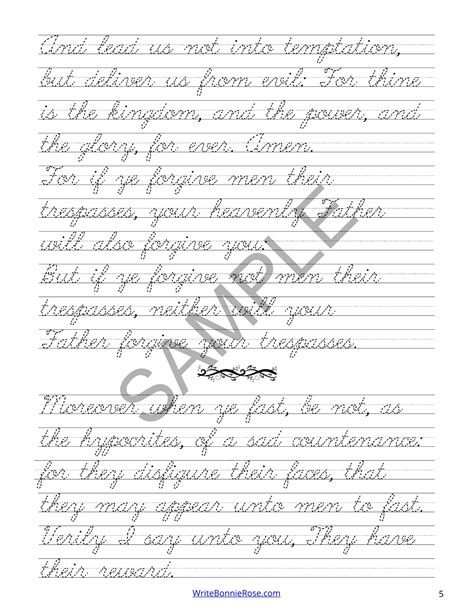
Learning to write in cursive can be a rewarding experience, and mastering the art of writing "Matthew" in cursive is a great place to start. Cursive writing not only adds a personal touch to your handwriting but also improves fine motor skills and enhances cognitive development. In this blog post, we will guide you through the steps to write "Matthew" in cursive, providing tips and tricks to help you perfect your technique.
Understanding Cursive Writing
Cursive writing is a style of penmanship in which the letters are connected in a flowing manner. It is often taught in schools as a way to improve handwriting speed and legibility. Writing in cursive requires a different set of skills compared to print writing, as it involves continuous strokes and fluid movements.
Benefits of Writing in Cursive
Writing in cursive offers several benefits, including:
• Improved fine motor skills
• Enhanced cognitive development
• Increased handwriting speed
• Better legibility
• Personalized and elegant handwriting
Steps to Write “Matthew” in Cursive
Writing “Matthew” in cursive involves breaking down the name into individual letters and connecting them smoothly. Here are the steps to help you write “Matthew” in cursive:
Step 1: Practice Individual Letters
Before attempting to write the entire name, practice writing each letter in cursive individually. Focus on the correct formation and flow of each letter. The letters in “Matthew” are M, a, t, t, h, e, w.
Step 2: Connect the Letters
Once you are comfortable with the individual letters, start connecting them. Begin with the letter “M” and smoothly transition into the letter “a.” Continue this process for each letter, ensuring that the connections are fluid and natural.
Step 3: Write the Entire Name
After practicing the connections, try writing the entire name “Matthew” in cursive. Focus on maintaining a consistent flow and ensuring that each letter is properly connected to the next. Remember to keep your hand relaxed and use a comfortable grip on your pen.
Step 4: Refine Your Technique
As you become more comfortable with writing “Matthew” in cursive, refine your technique by focusing on the following:
• Consistency in letter size and spacing
• Smooth and fluid connections between letters
• Maintaining a steady pace
• Avoiding excessive pressure on the pen
Tips for Writing “Matthew” in Cursive
Here are some additional tips to help you write “Matthew” in cursive:
• Use lined paper to practice, as it helps maintain consistent letter size and spacing.
• Start with a pencil before moving on to a pen, as it allows for easier corrections.
• Practice regularly to improve your skills and build muscle memory.
• Observe examples of cursive writing to get inspiration and ideas for your own style.
Common Mistakes to Avoid
When learning to write “Matthew” in cursive, it’s essential to avoid common mistakes that can hinder your progress. Some of these mistakes include:
• Inconsistent letter size and spacing
• Rushing through the writing process
• Applying too much pressure on the pen
• Ignoring the proper formation of individual letters
Practice Exercises
To help you improve your cursive writing skills, here are some practice exercises you can try:
• Write “Matthew” in cursive repeatedly, focusing on consistency and flow.
• Practice writing “Matthew” in cursive with your non-dominant hand to improve dexterity.
• Create sentences or phrases using the name “Matthew” to practice writing in context.
• Experiment with different pen types and ink colors to find what works best for you.
📝 Note: Remember that practice is key to mastering cursive writing. Be patient with yourself and enjoy the learning process.
Examples of “Matthew” in Cursive
Here are some examples of how “Matthew” can be written in cursive. Observe the different styles and techniques used in each example:
Example 1 Example 2 Example 3
Each example demonstrates a unique style and approach to writing "Matthew" in cursive. Use these examples as inspiration to develop your own personal style.
Advanced Techniques for Writing “Matthew” in Cursive
Once you have mastered the basics of writing “Matthew” in cursive, you can explore advanced techniques to further enhance your skills. Some advanced techniques include:
• Experimenting with different letter sizes and spacing
• Incorporating decorative elements and flourishes
• Practicing calligraphy techniques to add elegance to your writing
• Creating custom designs and patterns using cursive letters
These advanced techniques can help you take your cursive writing to the next level and create truly unique and personalized handwriting.
In summary, learning to write “Matthew” in cursive is a rewarding experience that offers numerous benefits. By following the steps outlined in this blog post and practicing regularly, you can master the art of cursive writing and develop a personalized style that reflects your individuality. Whether you are writing for personal enjoyment or professional purposes, cursive writing adds a touch of elegance and sophistication to your handwriting. So, grab a pen and start practicing “Matthew” in cursive today!